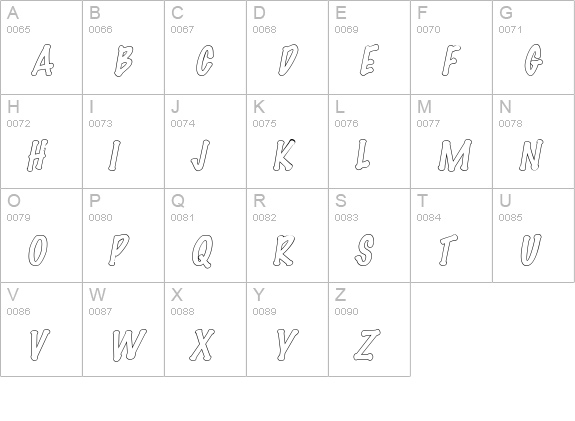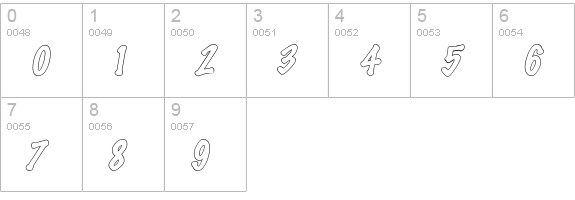
MarkerHollow Italic Font Details
MarkerHollow Italic is a distinctive, italic variant in the MarkerHollow typeface family \xE2\x80\x94 well suited to design and typography projects.
Introducing MarkerHollow Italic, a captivating and expressive font that effortlessly combines elegance with a playful touch. This unique typeface is perfect for adding a touch of personality to your designs, while maintaining a sense of sophistication. MarkerHollow Italic boasts a distinct handwritten style, with its slightly slanted and curvaceous letterforms. Each stroke exudes a sense of fluidity, mimicking the organic movements of a marker pen on paper. The result is a visually appealing font that adds a delightful handcrafted feel to any project. Whether you're designing a logo, crafting invitations, or creating eye-catching posters, MarkerHollow Italic will effortlessly elevate your work to new heights. Its versatile nature allows it to adapt to various design styles, from modern and minimalistic to whimsical and vibrant. And the best part? MarkerHollow Italic is free to download at FontsMarket.com, making it easily accessible to all designers and creatives. This means you can confidently incorporate this stunning font into your projects without worrying about breaking the bank. So why wait? Download MarkerHollow Italic today and unleash your creativity with this beautiful, freely available font. Let its distinctive charm and versatility transform your designs into true works of art.